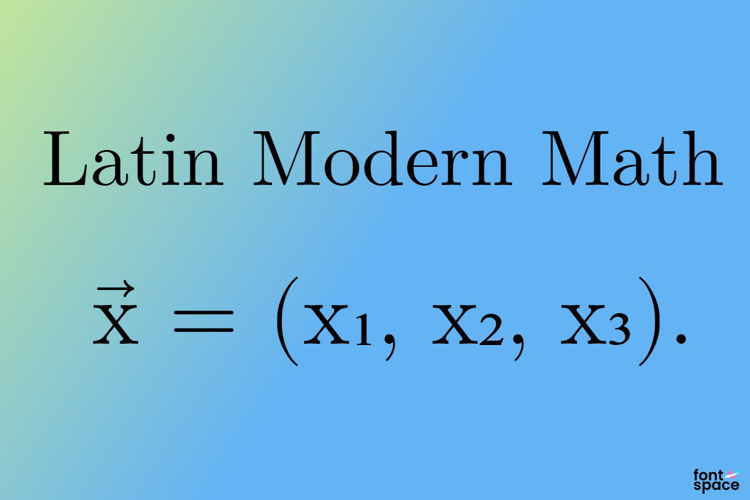
Latin Modern Math Font
The Latin Modern Math (LM Math) font completes the modernization of the Computer Modern family of typefaces designed and programmed by Donald E. Knuth.
That modernization started with the provision of the Latin Modern (LM) family of text fonts in the modern OpenType format and with a far richer set of diacritics and other glyphs making it suitable for typesetting of most Latin scripts.
However, the modernization was incomplete without the math fonts of the Comupter Modern family which were one of the main reasons for the widespread use of the Computer Modern fonts, most notably to typeset papers containing mathematical formulas.
LM and LM Math taken together may now be regarded as a full descendant of Computer Modern.